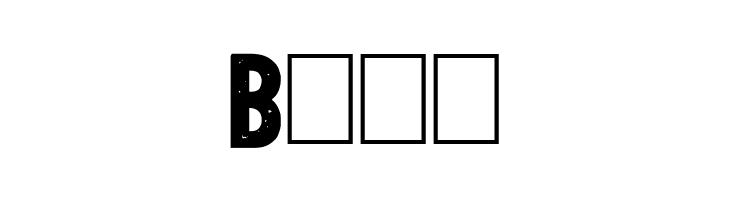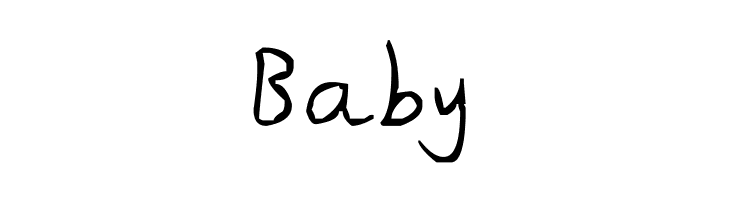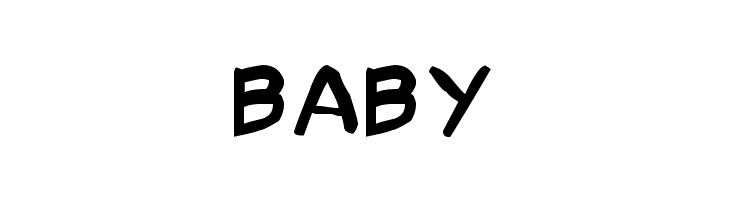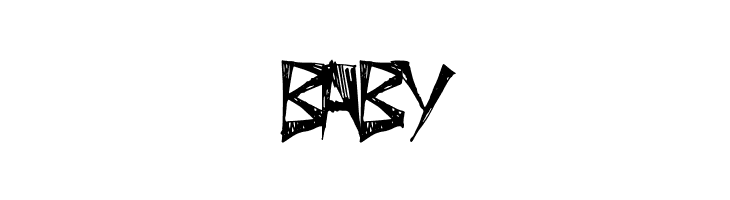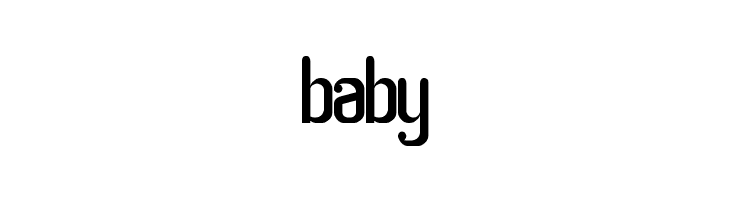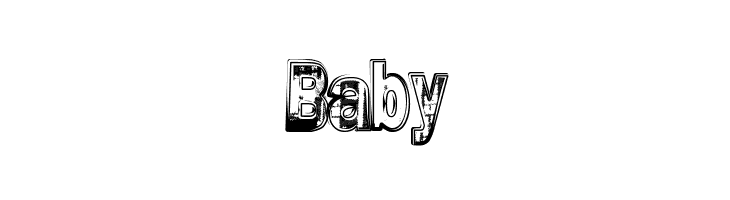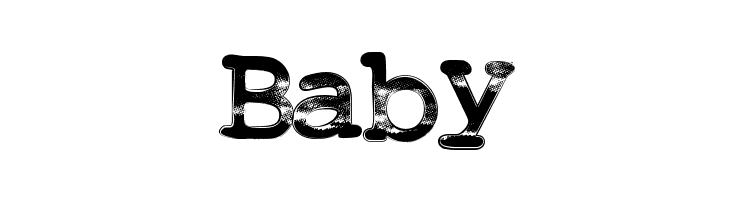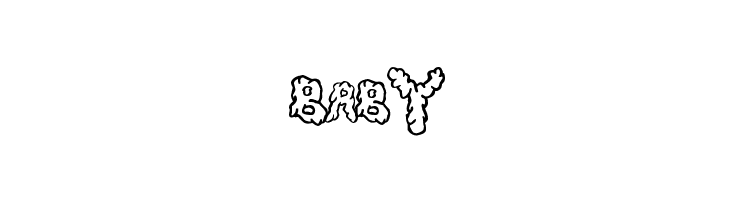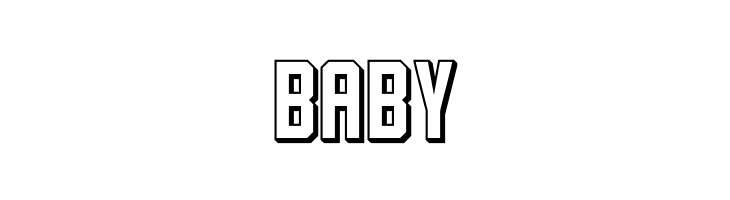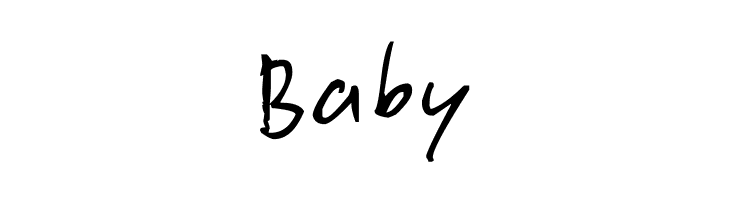
• SlickRide
A bold, distressed decorative font with a vintage, textured appearance.
• SlickRoadsDT
A bold, handwritten font with a playful and dynamic style.
• SlickWave
A bold, playful font with a dotted texture and rounded, bubbly letters.
• Slightly Eroded
A bold, distressed font with an eroded, vintage texture.
• SlightRocking
A bold, jagged font with an edgy, rebellious style.
• Slim
A modern, slim font with clean lines and geometric shapes.
• Slim Chef
• Slim Jim
A casual, handwritten font with a playful and informal style.
• Slim Play
• Slimbits
A sleek, ultra-thin font with elongated, narrow characters for a modern look.
• Slimbots
• Slimbots Italic
• Slimeball
A playful, bold font with irregular, blob-like shapes and a fluid, organic style.
• SlimeBawls
A playful, gooey font with a dripping slime effect.
• Slimed
A bold, dripping font with a spooky, fluid design.
• Slimfit
• Slimfit College
• Slimfit Demo
• Slimfit Shadowed
• Slippery Dip
A playful, dynamic handwritten font with irregular strokes and a casual appearance.
• sloppy
• Sloppy Paint
A bold, brush-style font with dynamic, hand-painted characteristics.
• SlotMachine
A bold, decorative font with a distressed, vintage texture.